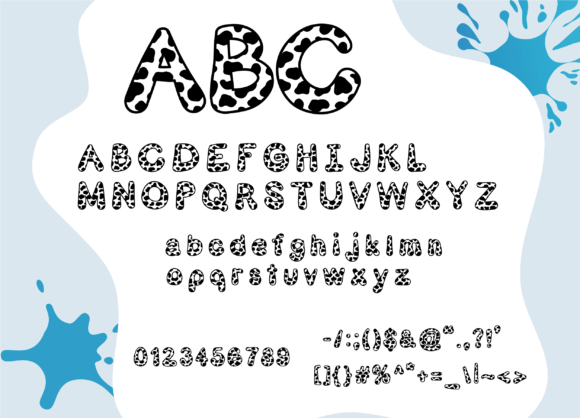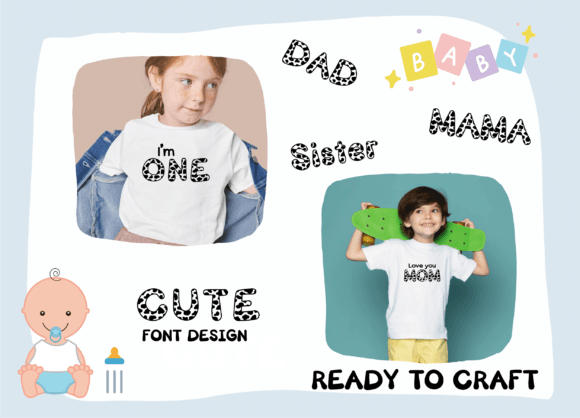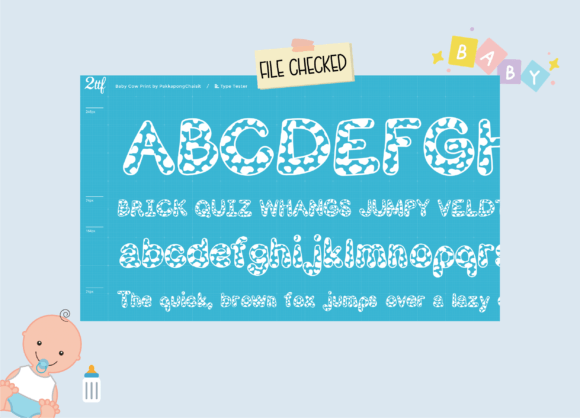
Step into the World of Whimsy with the Baby Cow Print Font
Who hasn’t felt the pure joy of designing a nursery or creating a baby shower invitation, only to be met with a sea of options that seem to lack a certain charm? That’s when inspiration strikes – and for many, it’s the sweet and adorable face of a baby cow. It’s in these moments of creative bliss that the Baby Cow Print Font comes to life, a font that captures the essence of cow spots and the playfulness of childhood.
This delightful font is more than just a design element; it’s an experience that adds a touch of cuteness and excitement to any project. Whether you’re a seasoned designer or a creative enthusiast, the Baby Cow Print Font is a valuable addition to your toolkit, perfect for bringing a sense of innocence and playfulness to your designs.
Baby Cow Print Font Key Features
- Font Style: A distressed, playful font with a cow print design, perfect for casual and creative projects.
- Unique Characteristics: The font features a unique cow print design, with a distressed texture that adds a touch of whimsy and personality to any project.
Baby Cow Print Font Review
Overall, I was excited to dive into the Baby Cow Print Font, but my experience was a mixed bag.
- The playful and whimsical feel of the font is perfect for creating child-friendly content, such as nursery decor, children’s books, or family blogs.
- The font is well-suited for short phrases and sentences, as it adds a touch of innocence and cuteness to the text.
- The bold and italic styles available in the font family provide some flexibility in terms of visual appeal.
- The font may not be the best choice for longer texts or formal content, as it can become overwhelming and difficult to read.
- The font’s childish nature may not be suitable for all audiences, such as adult-focused content or professional settings.
- The font’s limited glyph set may not support all languages or special characters.
The Baby Cow Print Font is a fun and playful addition to any designer’s toolkit, but it’s essential to use it judiciously and in the right context. While it excels at creating a lighthearted and child-friendly atmosphere, it may not be the best choice for more formal or professional content.
The Baby Cow Print Font is perfect for creating playful and whimsical designs. Some common use cases include:
Children’s party invitations and decorations
Food and beverage branding
Baby and pet-themed products
Remember to use the font in moderation and balance it with other design elements to avoid overwhelming the viewer.